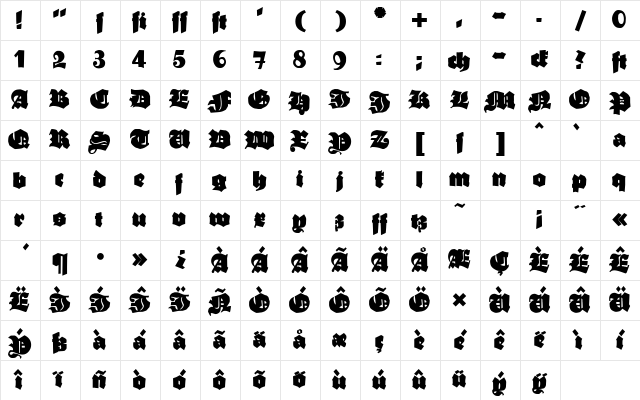
Complete Ganz Grobe Gotisch Medium glyph index. Displaying only characters natively supported by Ganz Grobe Gotisch Medium font.
Ganz Grobe Gotisch is a composed and adaptable typeface that performs quietly and consistently across a wide range of design contexts.